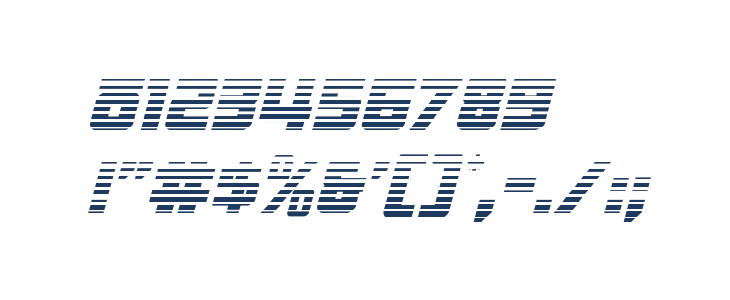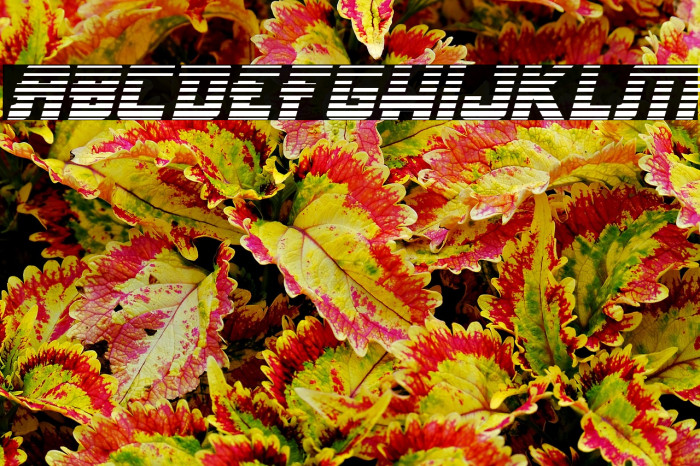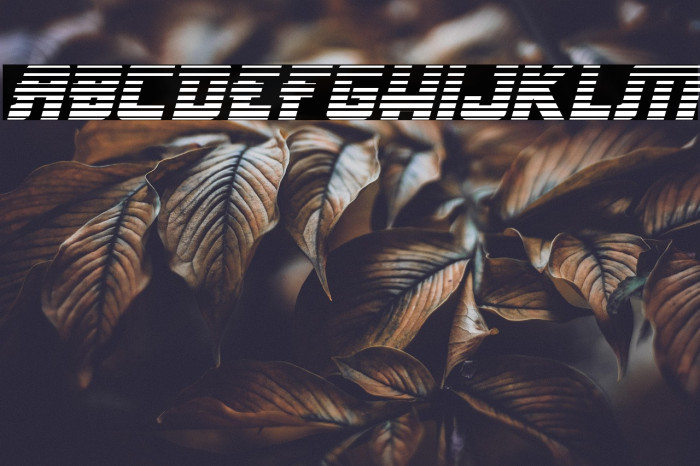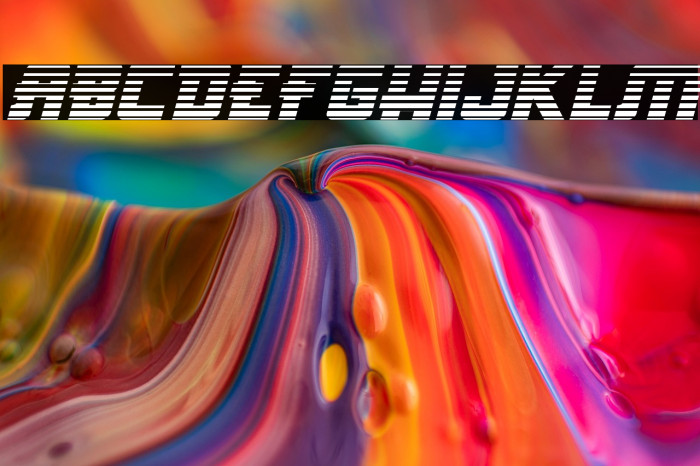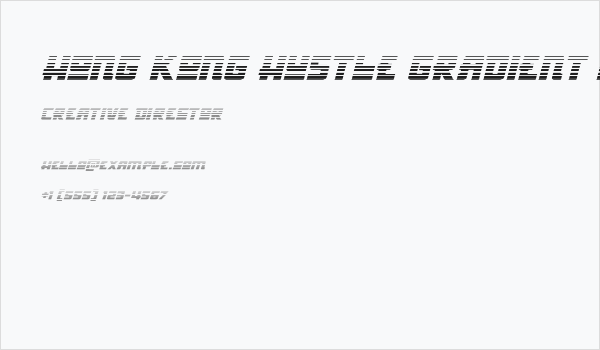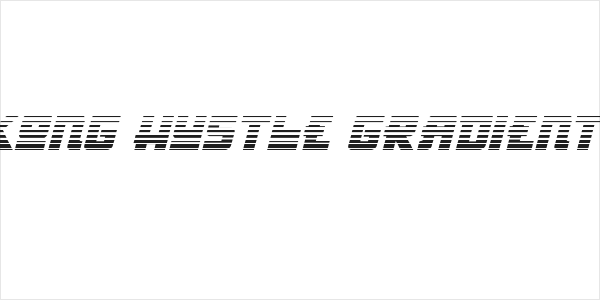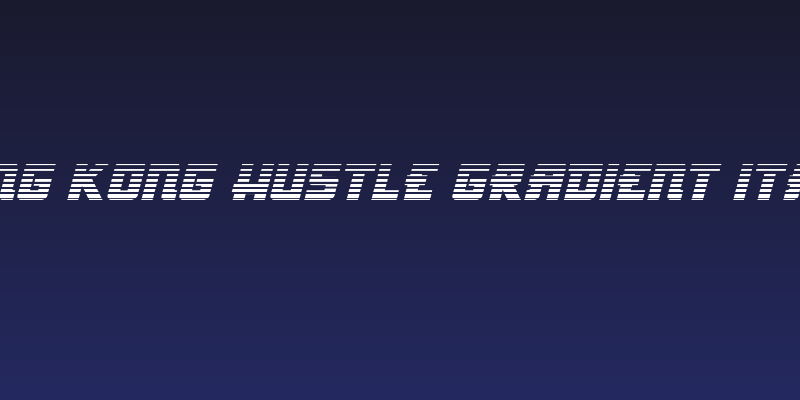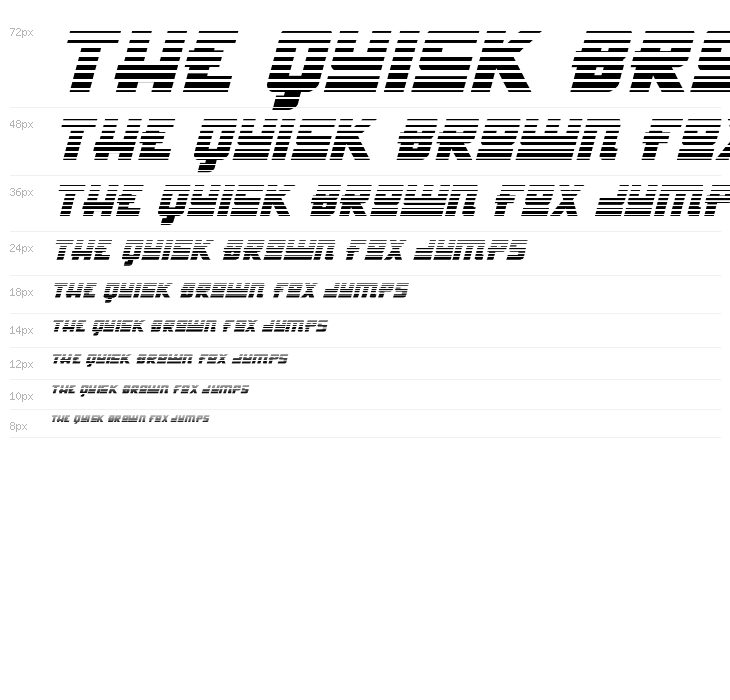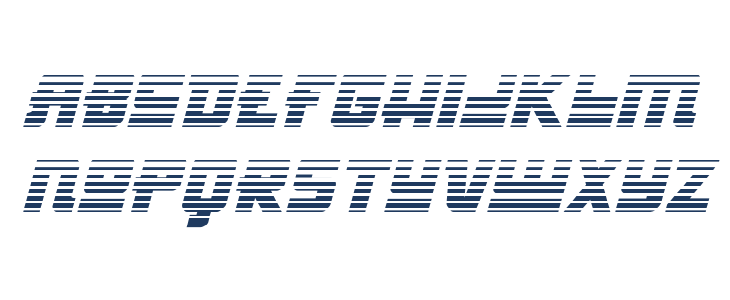
Hong Kong Hustle Gradient Italic Font
Hong Kong Hustle Gradient Italic Description
This font features a bold, futuristic design with a distinct gradient effect created by horizontal lines that form each character. The italicized style adds a dynamic and energetic feel, making it ideal for modern and tech-oriented projects. The uppercase and lowercase letters, along with numbers and special characters, maintain a consistent pattern of line breaks that give the font a unique, digital appearance. The overall design is sleek and eye-catching, suitable for projects that require a strong visual impact.